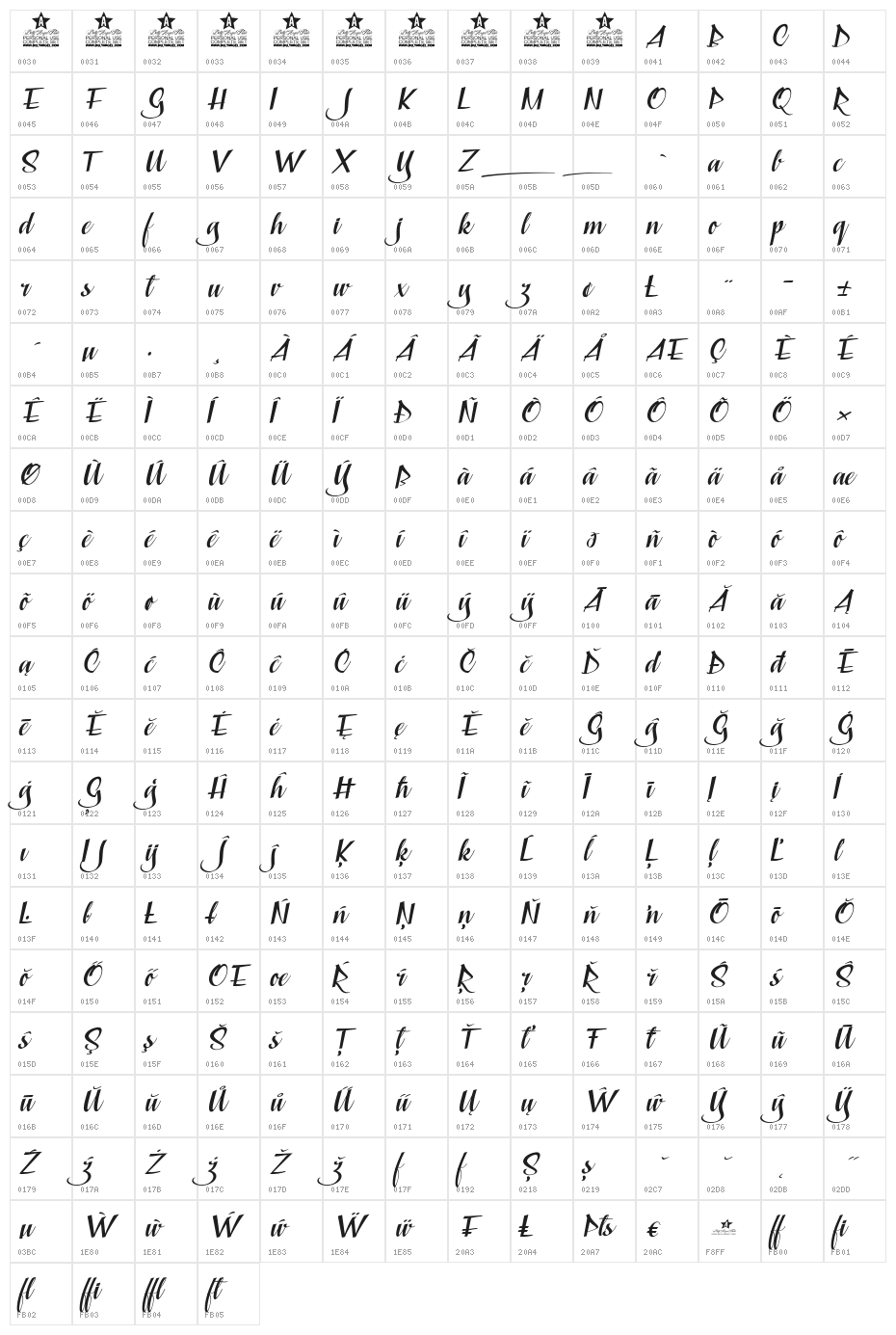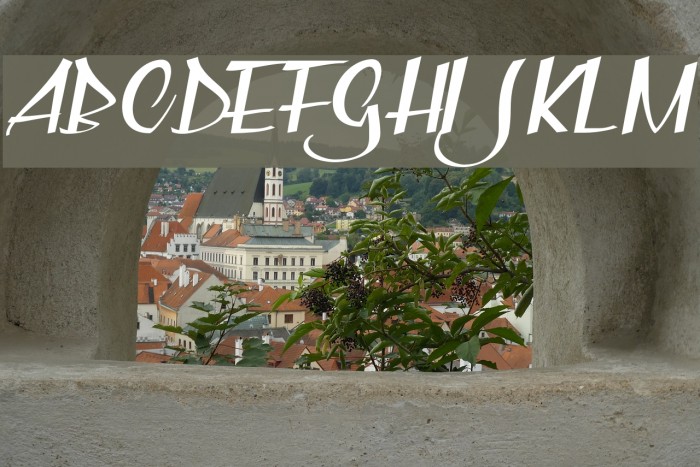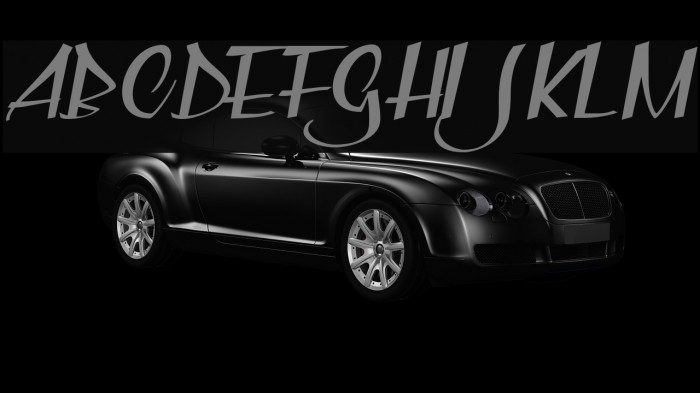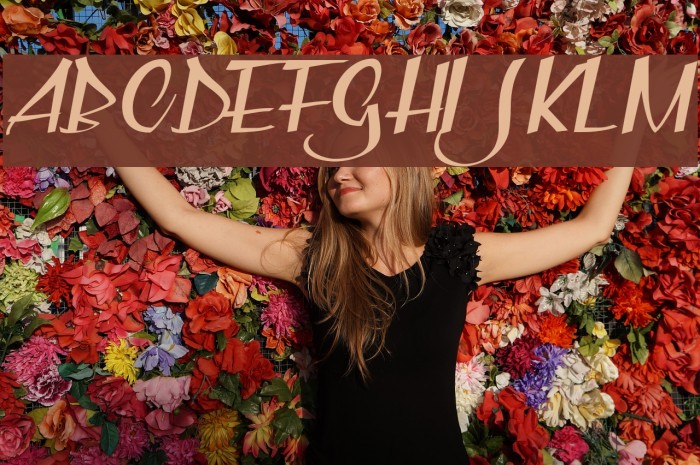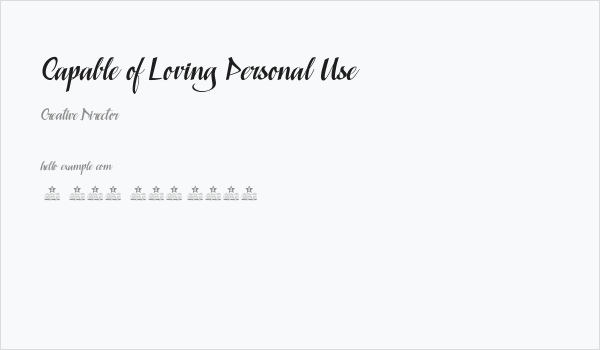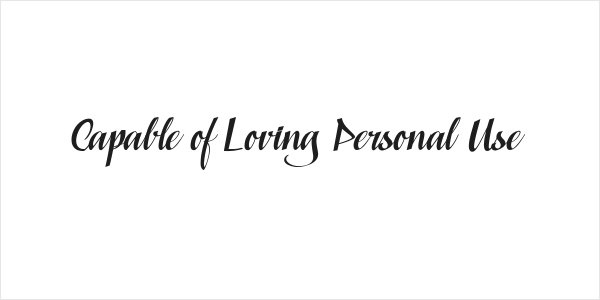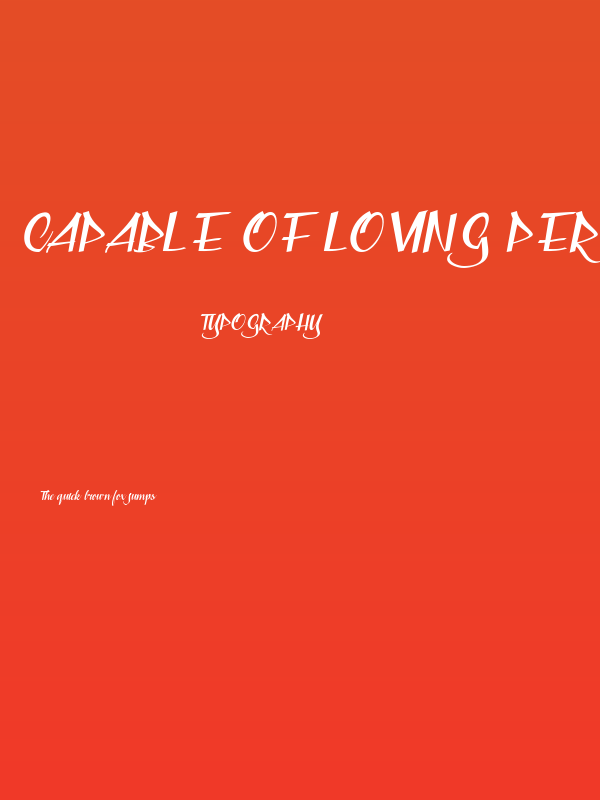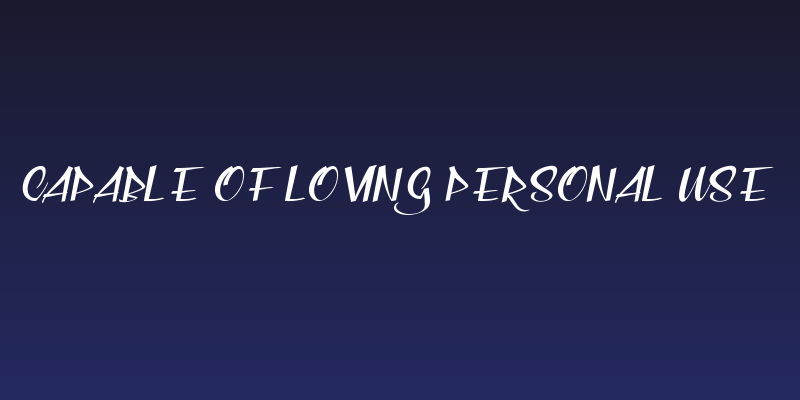
Capable of Loving Personal Use Font
Capable of Loving Personal Use Description
This font exhibits a dynamic and expressive style, characterized by its flowing, cursive script. The uppercase letters are bold and elongated, with elegant curves and flourishes that give a sense of movement and sophistication. The lowercase letters maintain a consistent style, with smooth connections and a slightly slanted orientation, enhancing the fluidity of the text. The overall design is reminiscent of calligraphic handwriting, making it suitable for projects that require a personal and artistic touch. The font's unique character shapes and varying stroke widths contribute to its distinctive appearance, making it stand out in decorative applications.